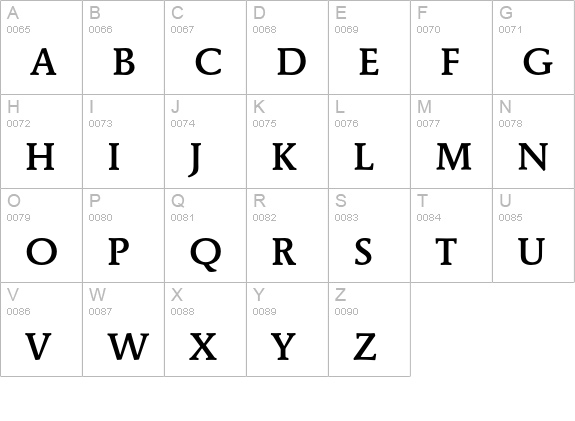
MendozaEF-Medium is a balanced, medium-weight variant in the MendozaEF typeface family \xE2\x80\x94 well suited to sub-headlines, navigation, and balanced editorial work.
MendozaEF-Medium font is a versatile and modern typeface that exudes elegance and sophistication. With its clean lines and balanced proportions, this font is perfect for a wide range of design projects, from branding to editorial design. The MendozaEF-Medium font strikes the perfect balance between traditional and contemporary, making it suitable for both print and digital applications. The best part? MendozaEF-Medium font is available for free download at FontsMarket.com. This means you can easily access this high-quality font without any cost. Whether you're a graphic designer, a website developer, or a content creator, having the MendozaEF-Medium font in your toolkit will surely elevate your projects to the next level. Don't miss out on the opportunity to enhance your designs with the MendozaEF-Medium font. Download it for free today at FontsMarket.com and start creating stunning visuals that capture attention and leave a lasting impression.